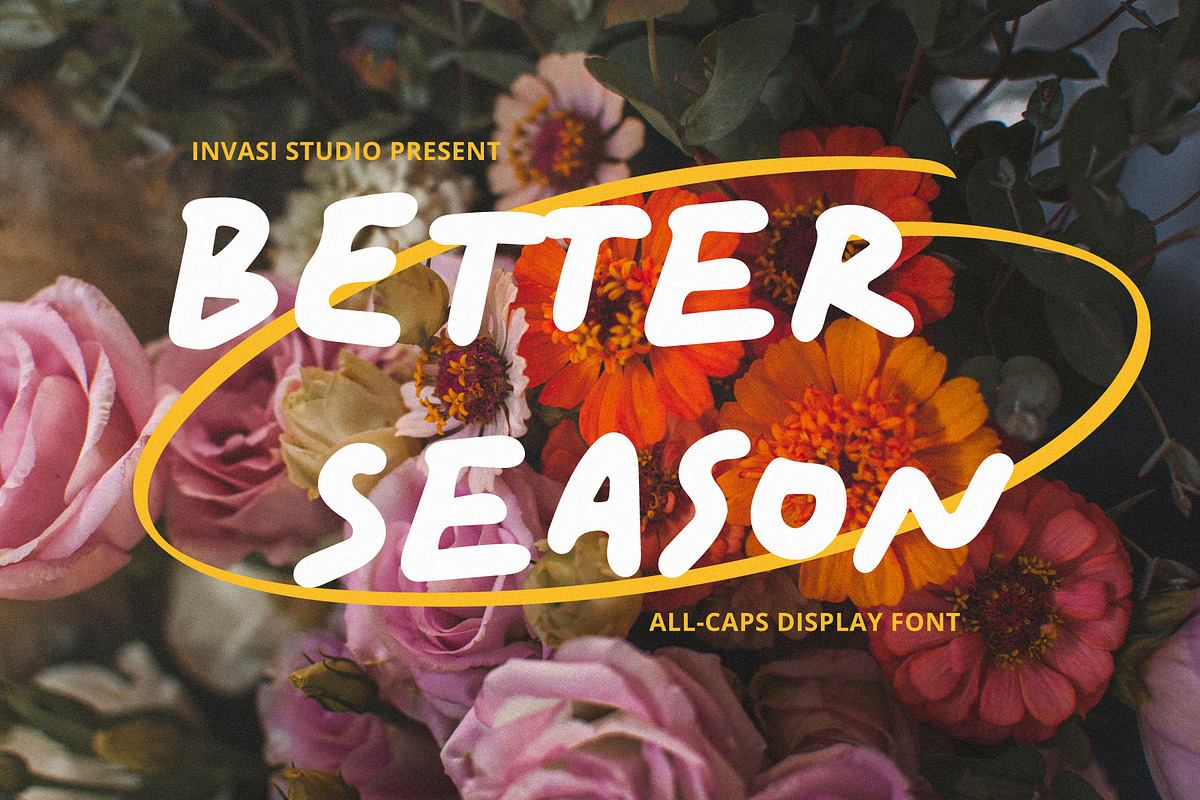
Better Season | Display Font Free Download is a bold and stylish display typeface designed to make a strong impact. With its unique letterforms and attention-grabbing design, this font is perfect for headlines, posters, logos, event promotions, and branding. The font’s modern, clean lines give it a fresh, vibrant feel, while its distinctive style ensures that it stands out in any design.
Using the Better Season | Display Font Free Download adds personality and energy to your typography. Whether you're working on a promotional banner, creating a trendy logo, or designing event materials, this font brings a confident, modern flair to your projects.